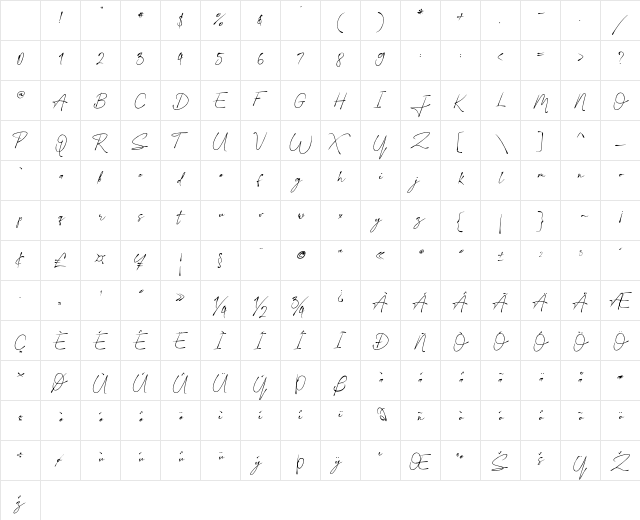
Javiersa Regular Free Font
Javiersa Regular
Design Context for Javiersa
Javiersa is a composed and adaptable typeface that performs quietly and consistently across a wide range of design contexts.